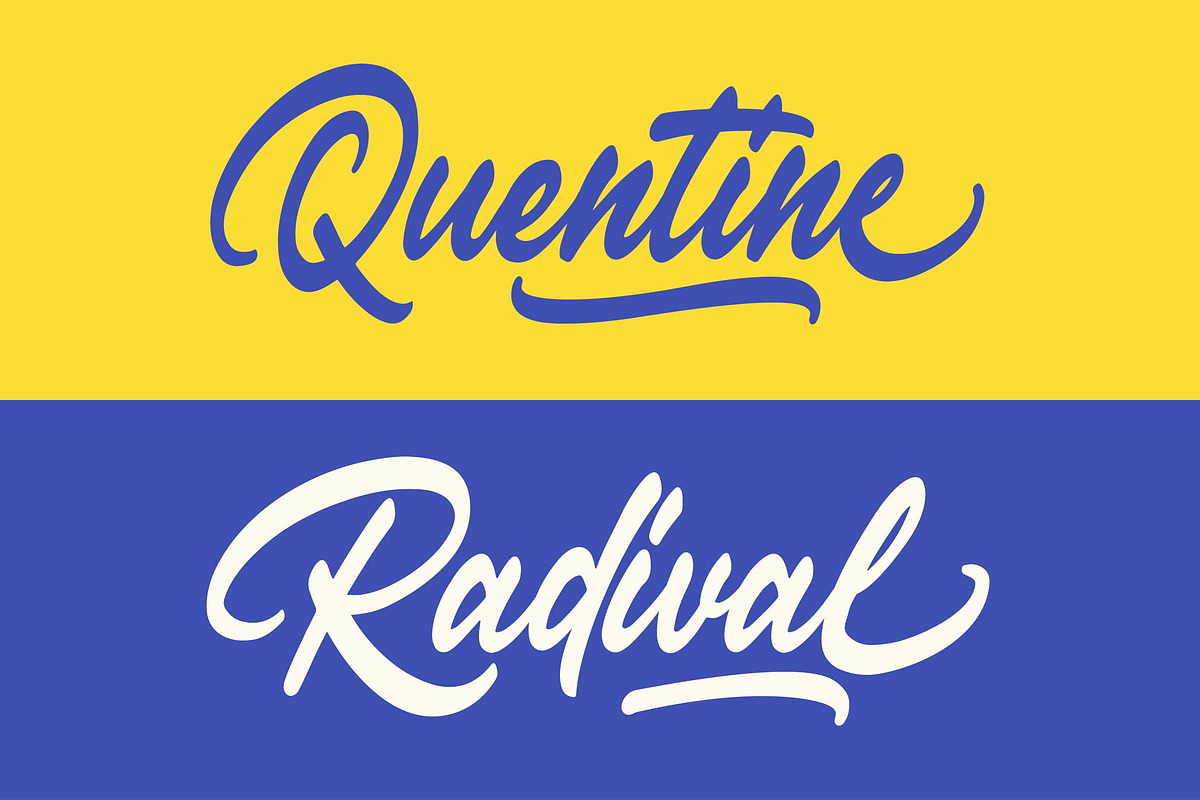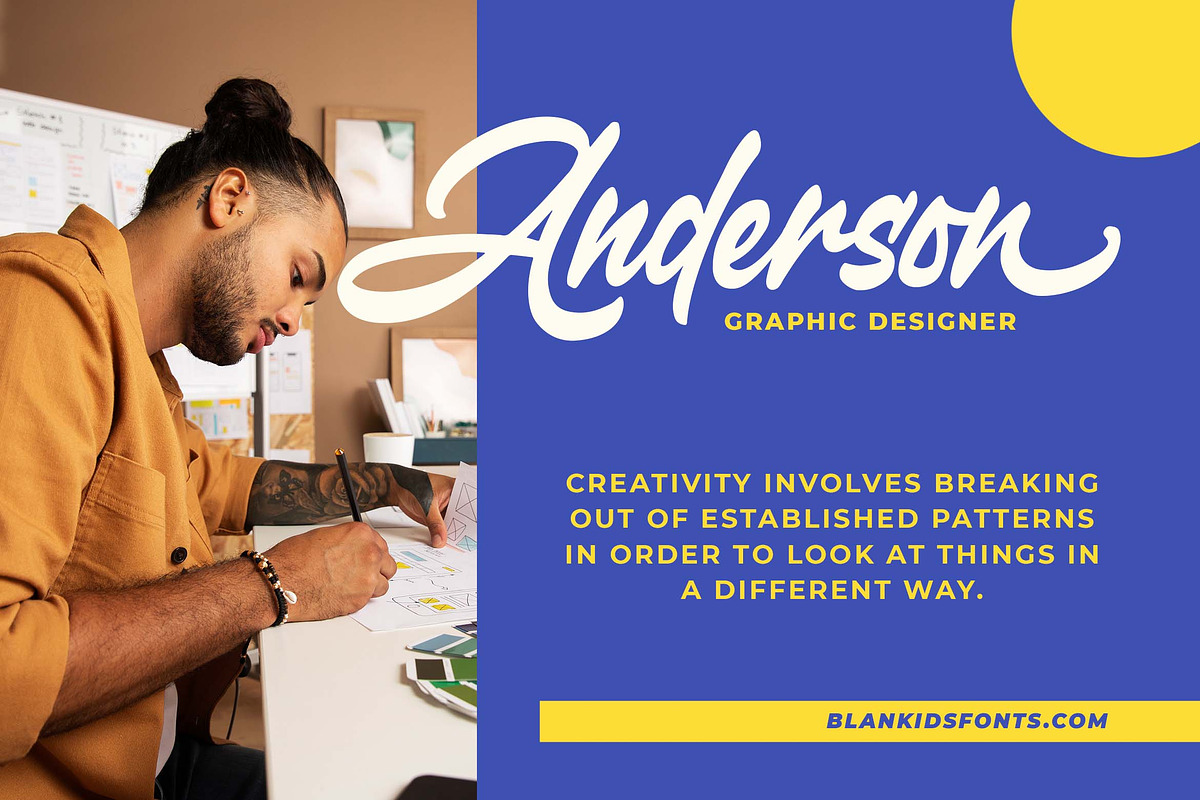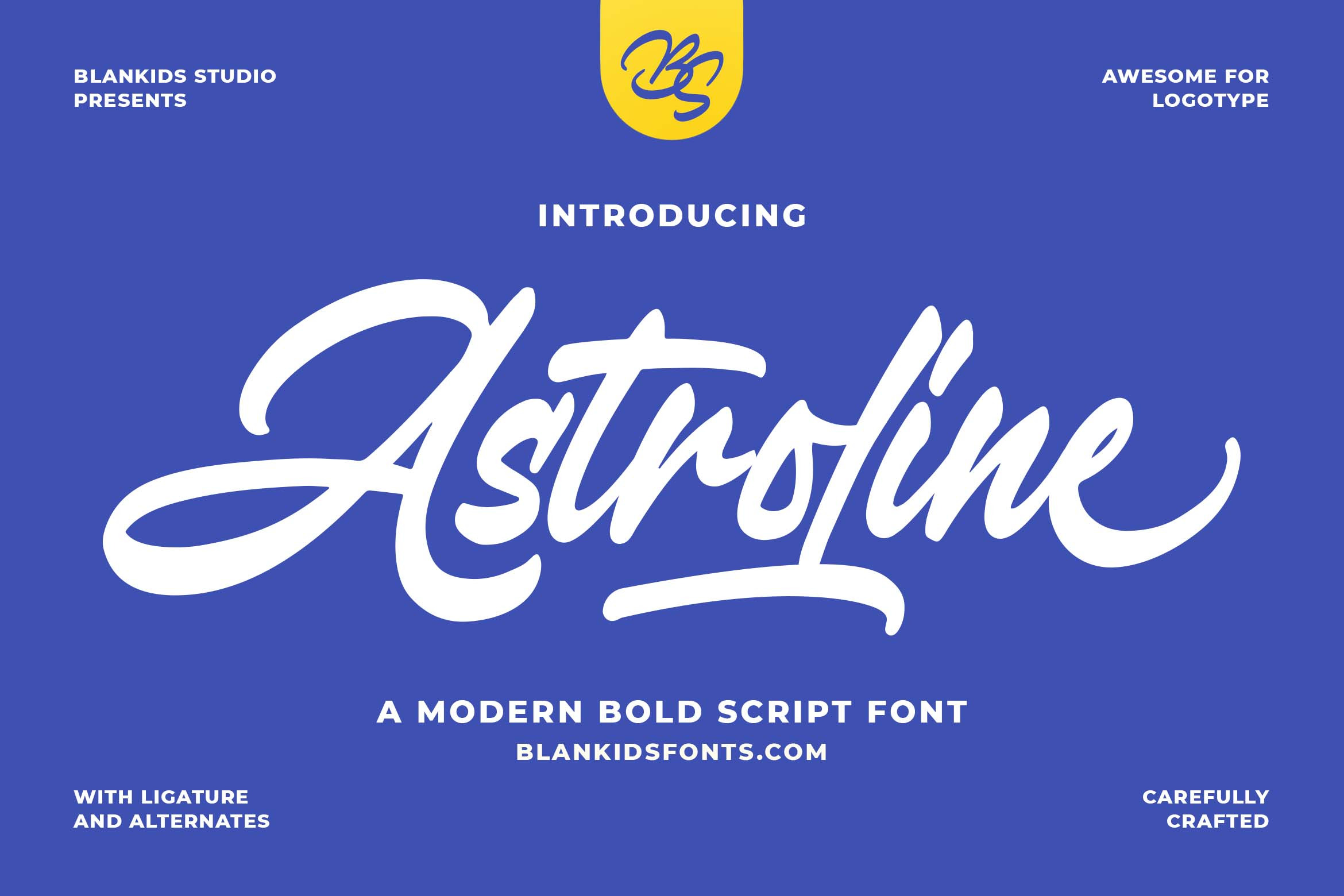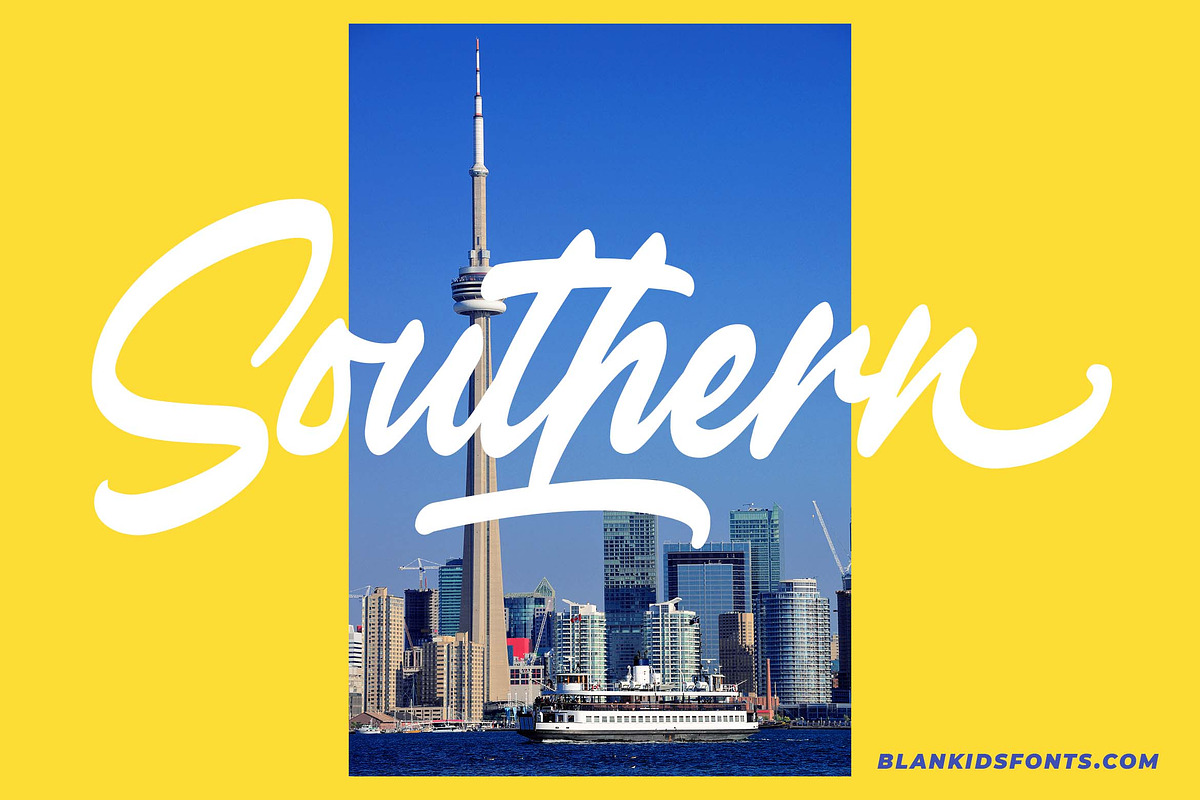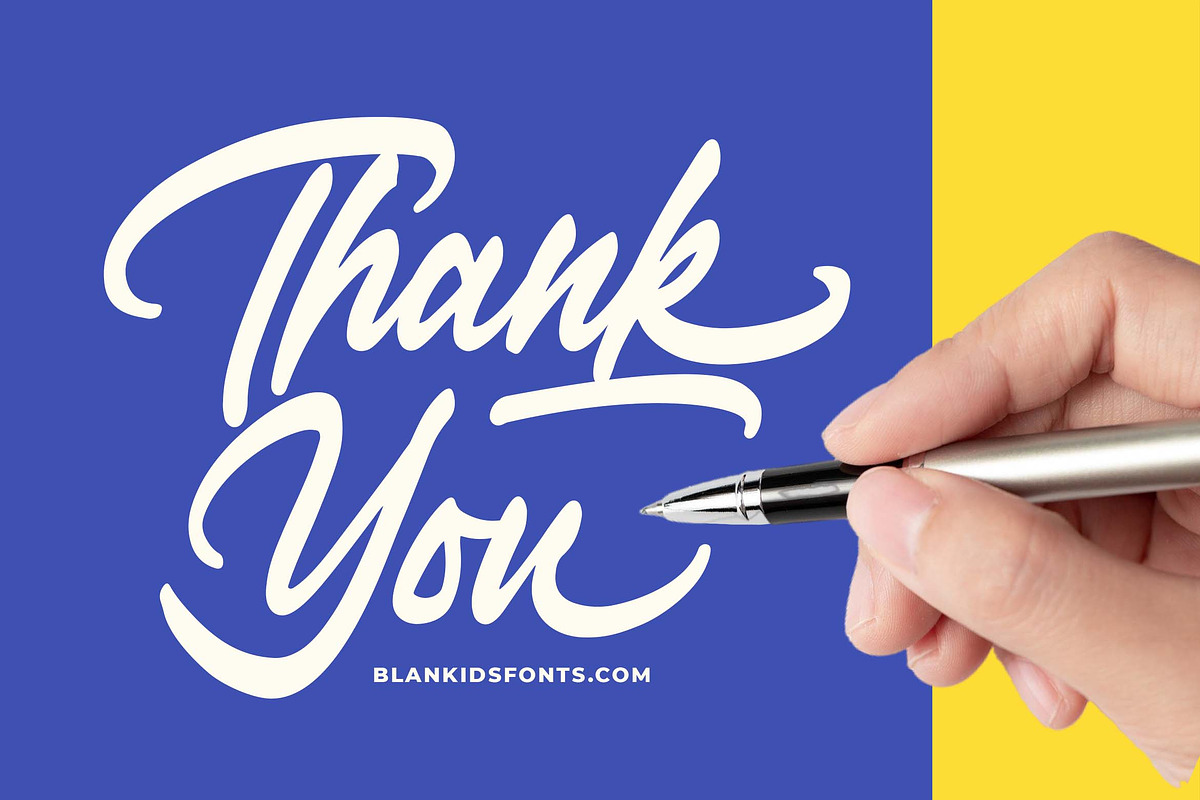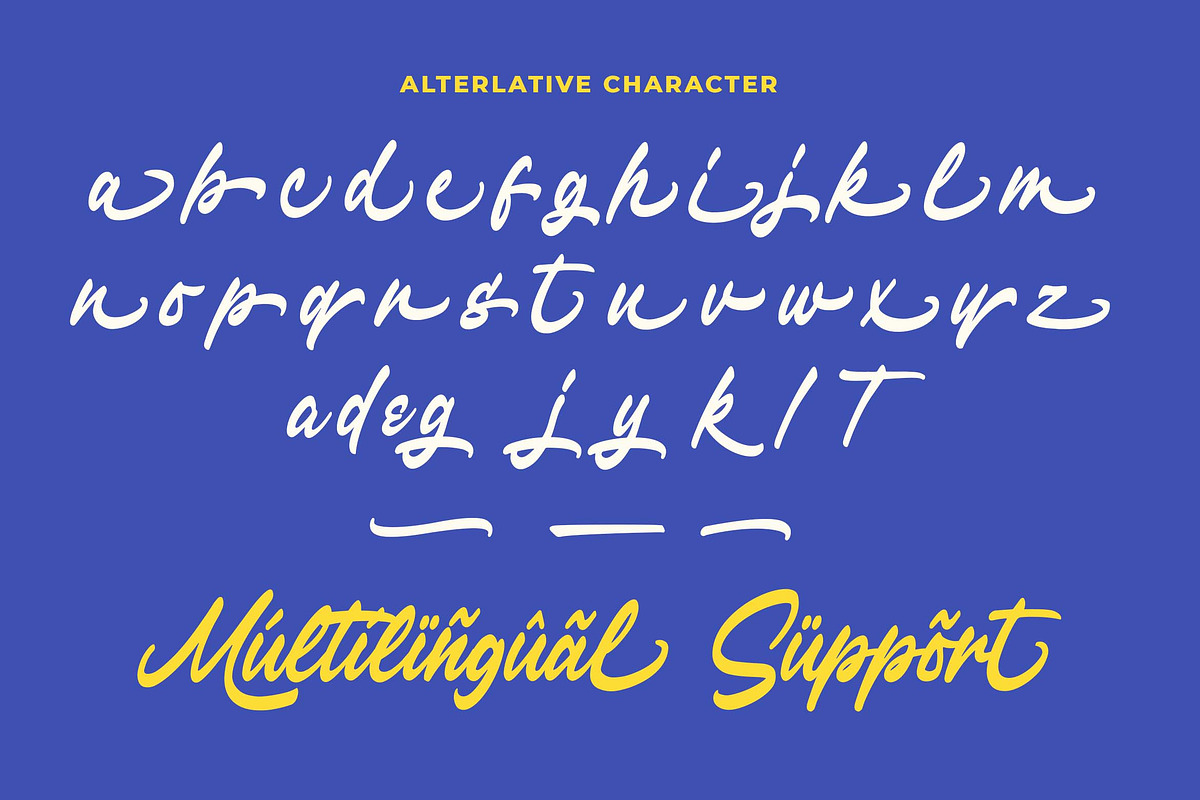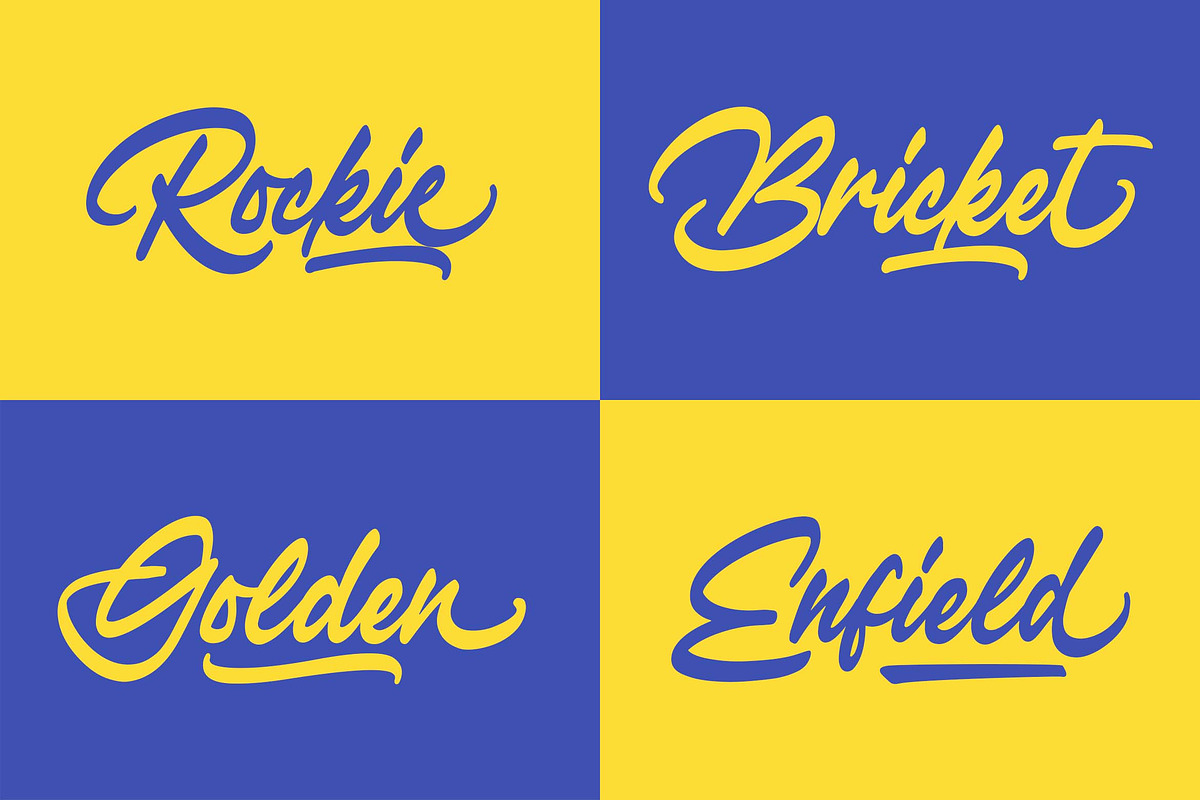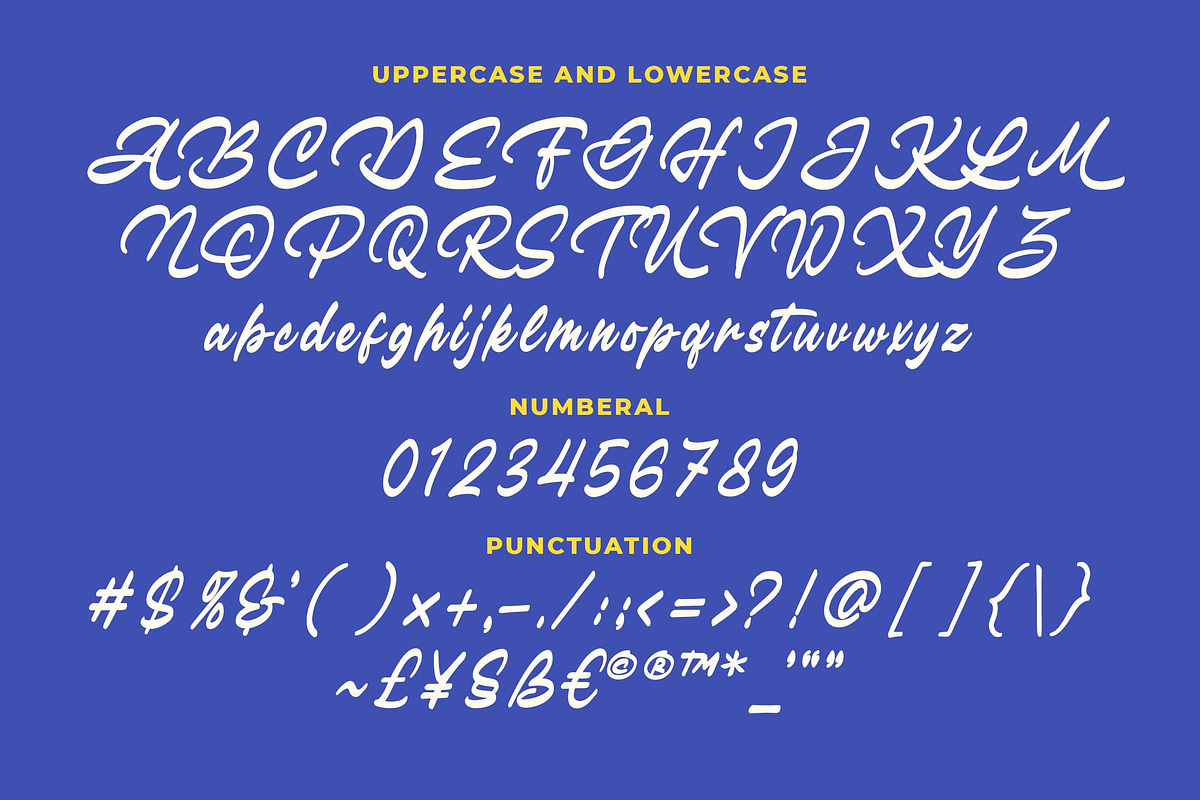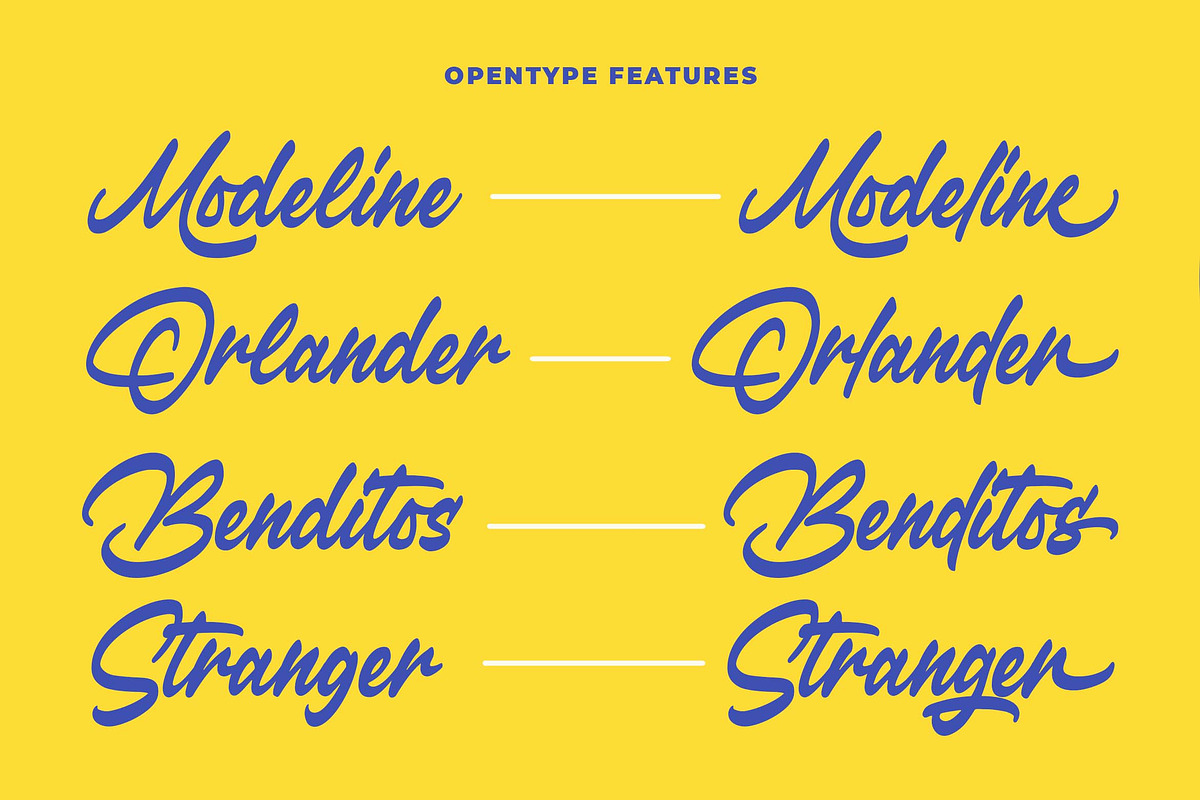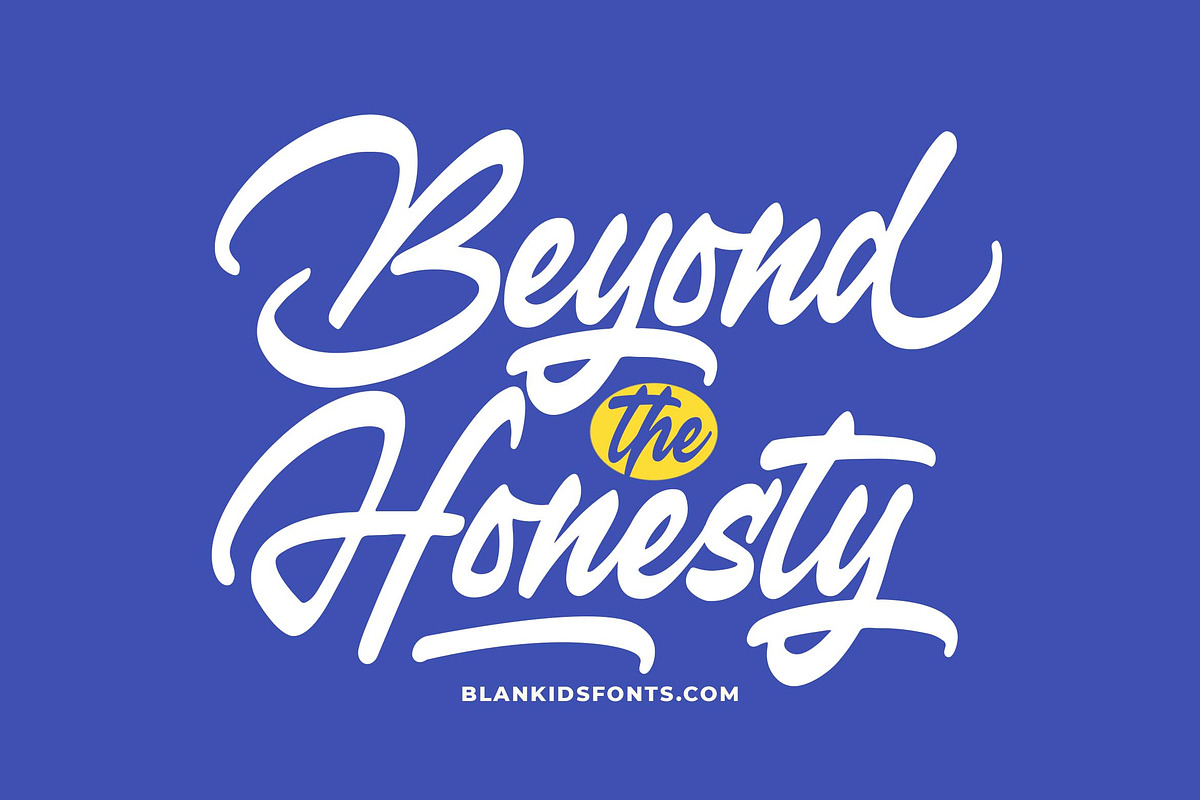
Astroline a modern bold script font
Hello, awesome people! This time, we have a new font called Astroline a modern bold script font by Blankids Studio.
Astroline, a modern bold script font is made for any professional project branding, such as logotype, comic, watermarks, poster, branding, promotions, product packaging, etc. Every letter has a modern clean script style design. This font comes in regular style.
Astroline font includes a full set of modern clean script uppercase and lowercase letters, numerals and punctuation. This font has a modern script style. See the previews above to get some inspiration on how to use them. Happy designing!